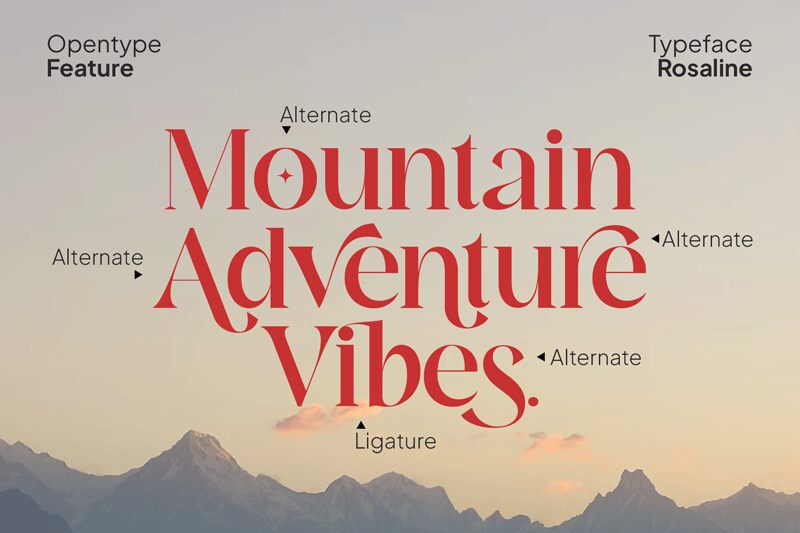
Rosaline-Regular
Rosaline font by VampStudio is an elegant serif font combining the best of classic and modern elements. The refined characters have a unique stylish quality to them while maintaining their geometric balance. Many uppercase letters have beautifully exaggerated swirls that extend the letters upwards in style.
Use this free serif font for branding, packaging design, postcards, invitations, posters, books and magazine covers. It suits restaurants, cosmetics labels, posters for plays or exhibitions as well as many other high-end products or services.